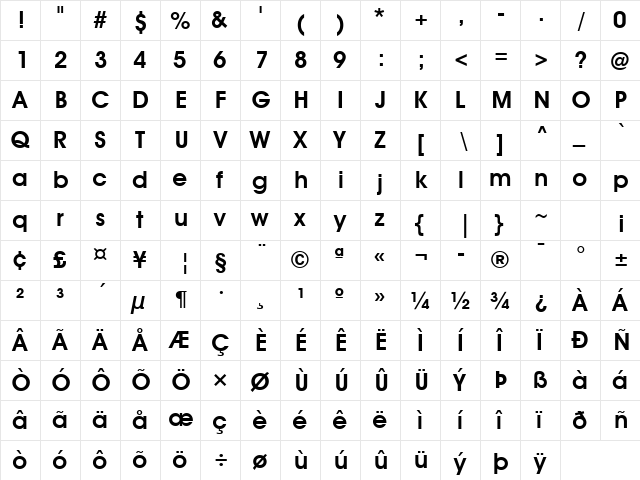
ITC Avant Garde SWA Demi
Design Context for ITC Avant Garde SWA Typeface
ITC Avant Garde SWA is a composed and adaptable typeface that performs quietly and consistently across a wide range of design contexts.